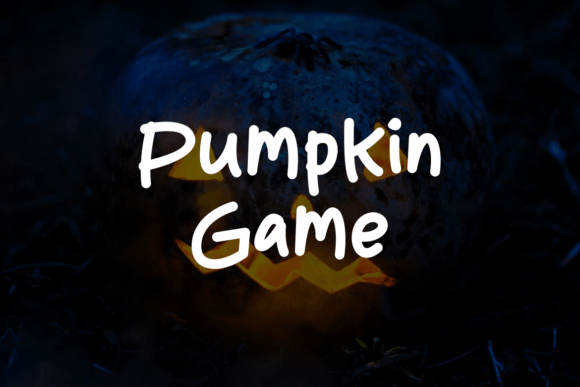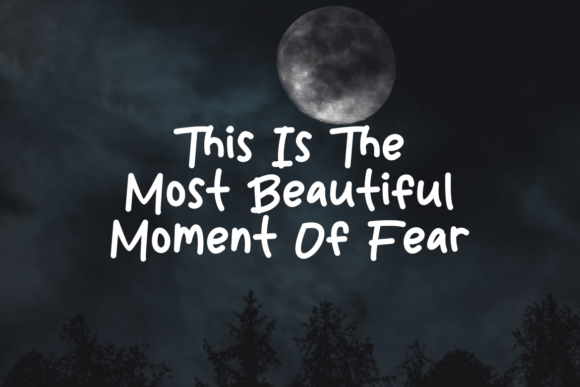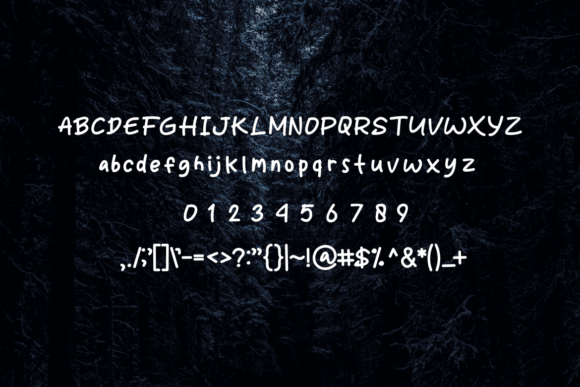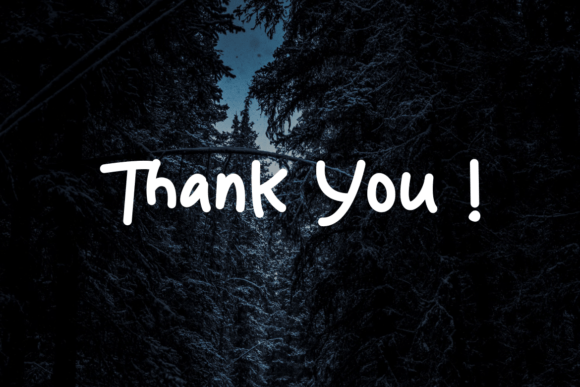
The Spooky Charm of Carnaval Halloween Font
As a designer, I’ve had my fair share of late nights scrolling through font libraries, searching for that perfect typeface to bring a project to life. One particularly memorable night was when I was working on a Halloween-themed party invitation for a client. I wanted a font that would capture the playful yet spooky essence of the holiday. That’s when I stumbled upon the Carnaval Halloween Font. It was love at first sight! 🎃
A Personal Review of Carnaval Halloween Font
Here’s what I love about this font:
- ✨ Playful and Creepy Look: The Carnaval Halloween Font has a unique blend of playful and creepy elements, making it perfect for Halloween-themed projects.
- ✅ Whimsical and Eerie Style: The letters have a whimsical and eerie style that adds a festive touch to any design.
- 💡 Versatility: This font can be used for a variety of projects, including party invitations, decorations, posters, and more.
While I adore this font, there are a few quirks to keep in mind:
- ⚠️ Limited Use Cases: While versatile, this font is best suited for Halloween-themed projects. It might not be the best choice for other types of designs.
- 🤔 Glyph Limitations: Some users have reported that the font could benefit from more glyph options, particularly for non-English characters.
- Experiment with OpenType features like ligatures and stylistic alternates to add more character to your text.
The Story Behind Carnaval Halloween Font
The Carnaval Halloween Font was designed with the intention of capturing the whimsical and eerie spirit of Halloween. The designer aimed to create a typeface that would be both playful and creepy, perfect for party invitations, decorations, and posters. The result is a font that’s sure to add a festive touch to any Halloween-themed project.
| What makes Carnaval Halloween Font unique? | Carnaval Halloween Font is unique due to its playful and creepy look, making it perfect for Halloween-themed projects. |
| Does Carnaval Halloween Font support OpenType features? | Yes, Carnaval Halloween Font supports OpenType features like ligatures and stylistic alternates, allowing for more customization. |